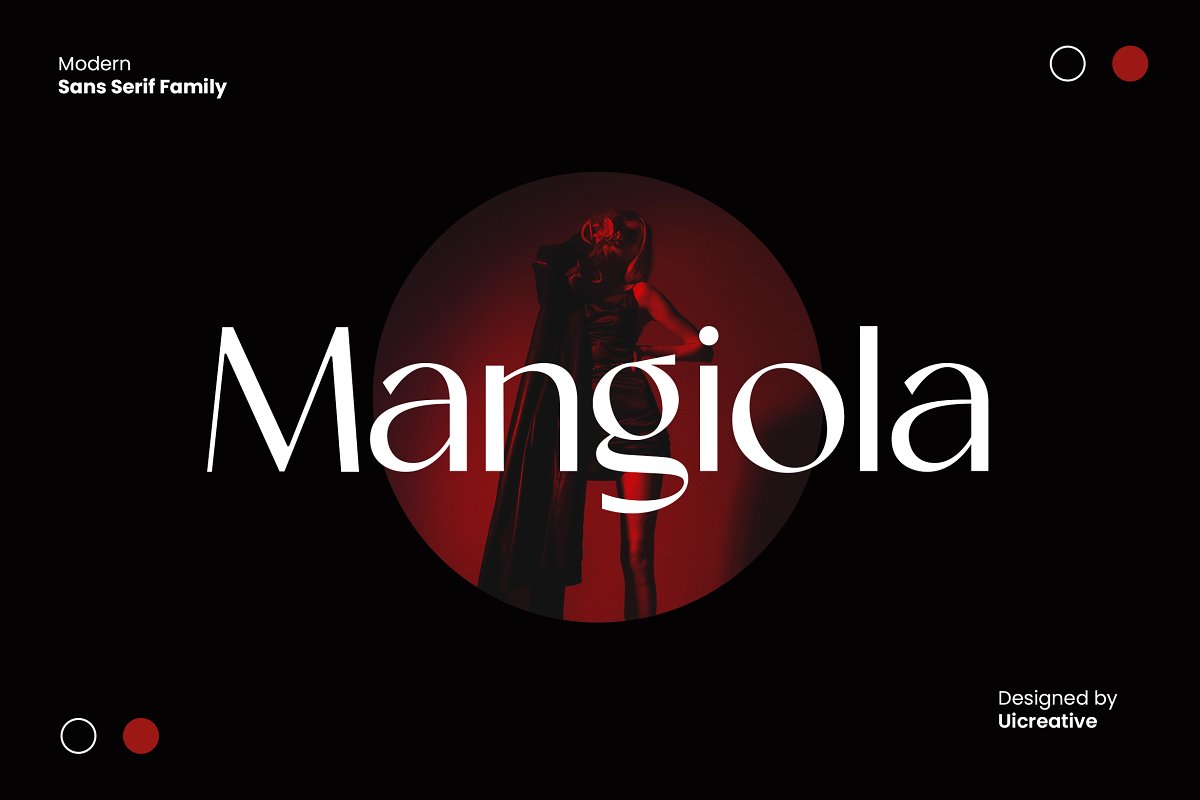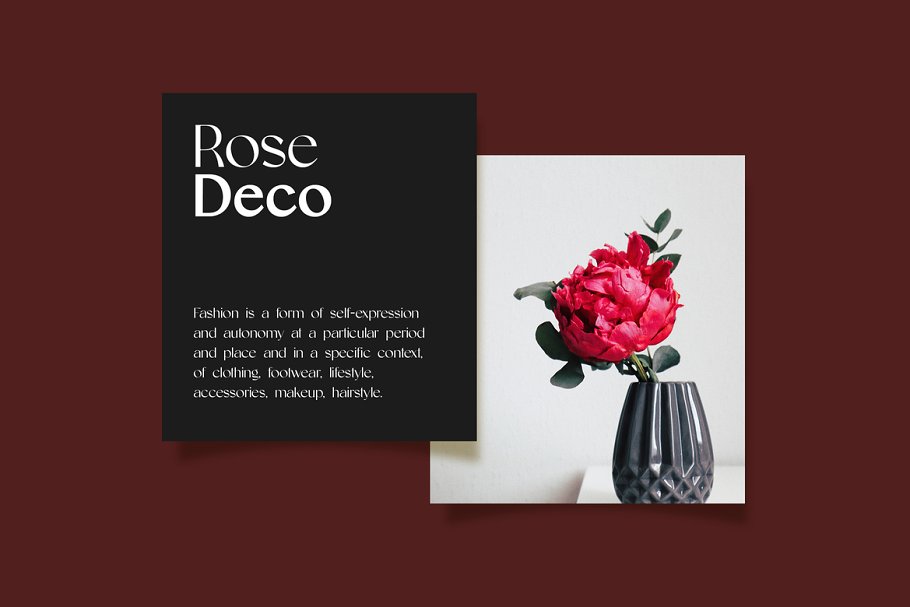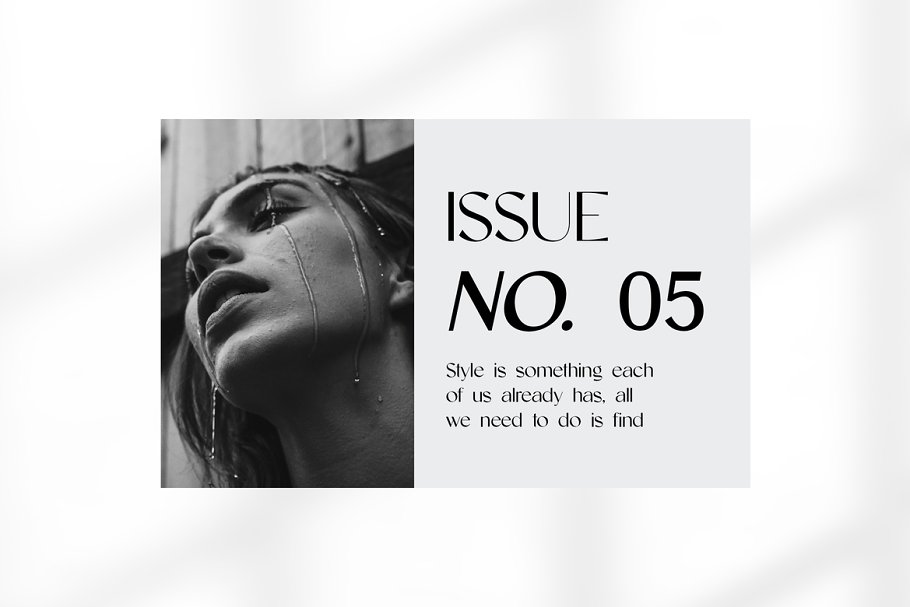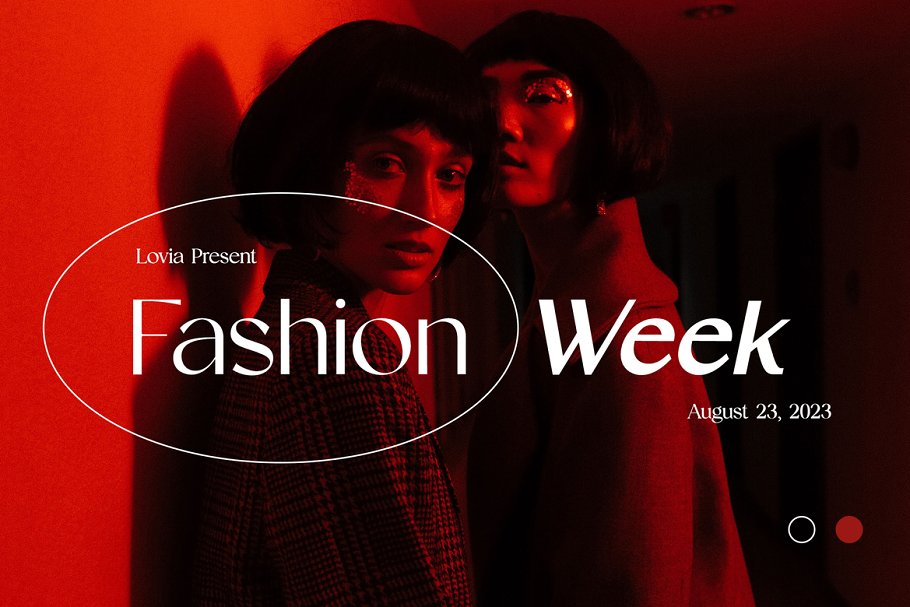
About the Mangiola Modern Sans Serif Font
Introducing our new product the name is Mangiola Modern Sans Serif Font, Modern Serif font that feels beautiful classy, elegant, and modern, This font is ideally suited for a wide variety of projects, such as signature, stationery, logo, wedding, typography quotes, magazine or book covers, website headers, clothing, branding, packaging design, and more
Also, fashion-related branding or editorial design displays both masculine and feminine qualities, Supported Characters:ABCDEFoHIJÁLMNOPQRSTUVWXYZabcdefghijklmnopqrstuvwxyz0123456789!#$&'()*+,-, /:;=?@[]_{|} ¡¢«»¿ÀÁÂÃÄÅÇÈÉÊËÌÍÎÏÑÒÓÔÕÖØÙÚÛÜÝàáâãäåçèéêëìíîïñòóôõöøùúûüÿĀāĂ㥹ĆćĈĊċČčĎďĒēĔĕĖėĘęĚěĜĞğĠġĤĨĩĪīĬĭİıĴĹĽľŁłŃńŇňŌōŎŏŔŘřŚśŜŞşŠšŤťŨũŪūŬŭŮůŴŶŸŹźŻżŽžǫȦɢɪɴʀʏʙʜʟᴀᴄᴅᴇᴊᴋᴍᴏᴘᴛᴜᴠᴡᴢẀẂẄẼỲ